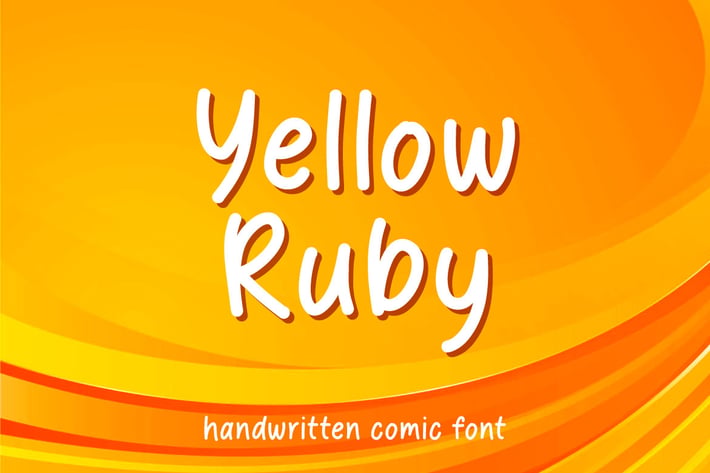
Yellow Ruby - Handwritten Comic Font
Hello! Yellow Ruby is a handwritten comic font.
Yellow Ruby can be used in any works such as flyer, book title, advertisement, social media content, logo and many more.